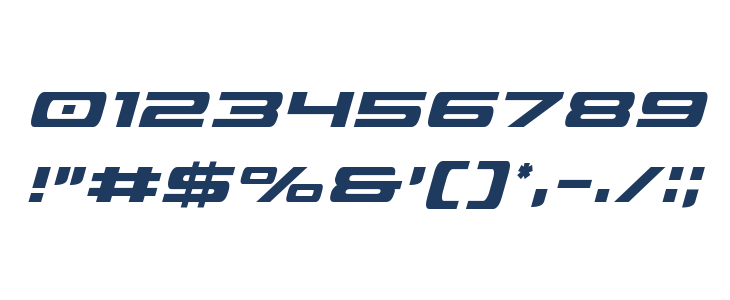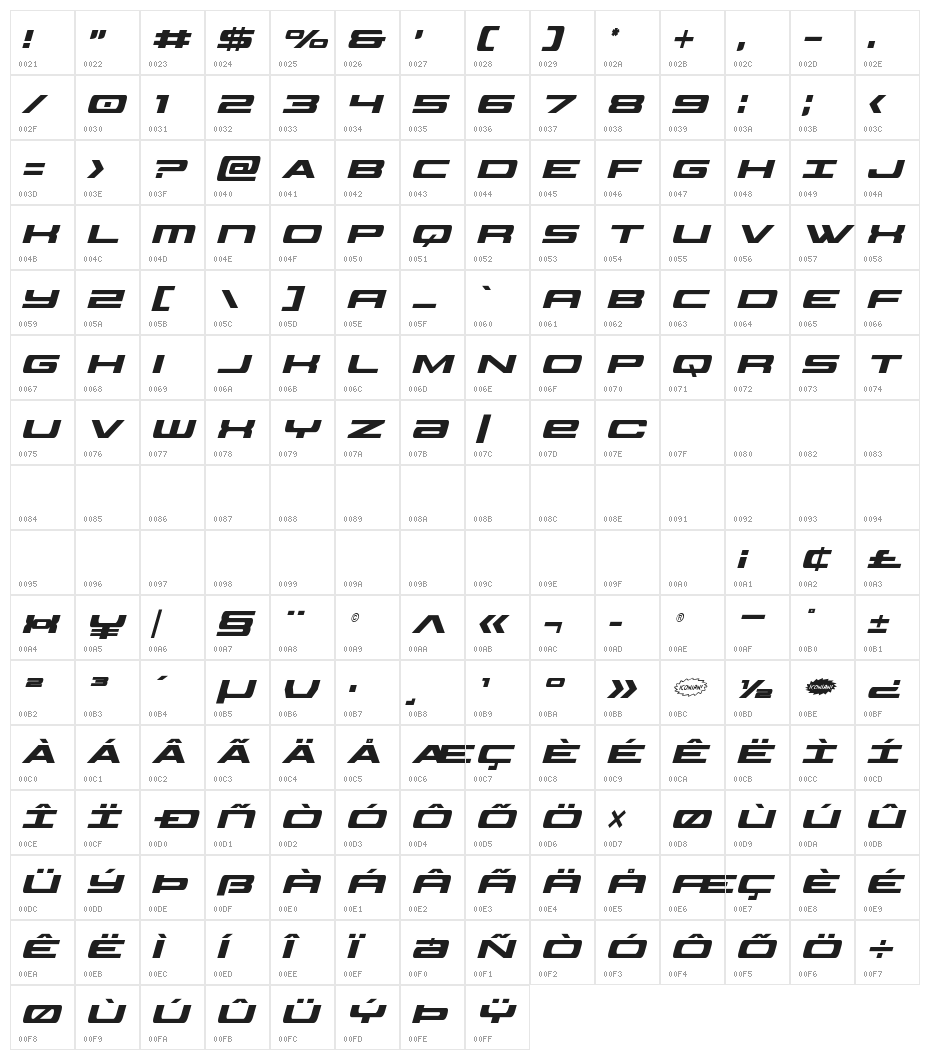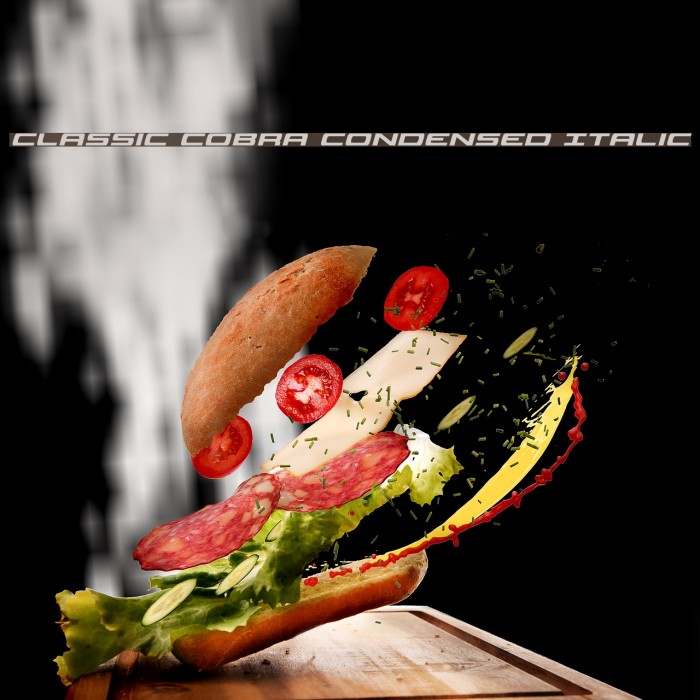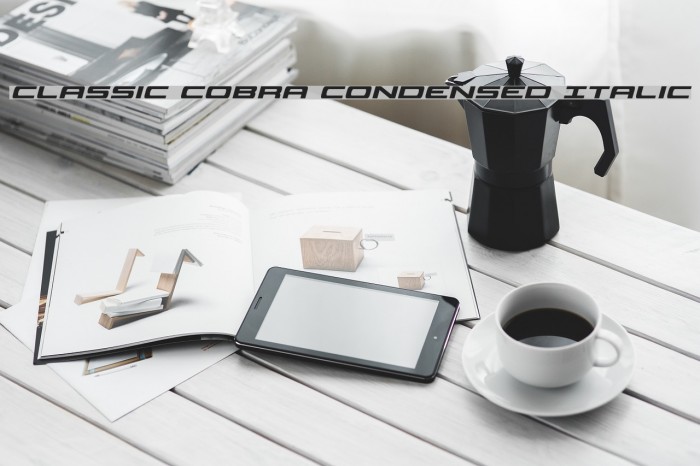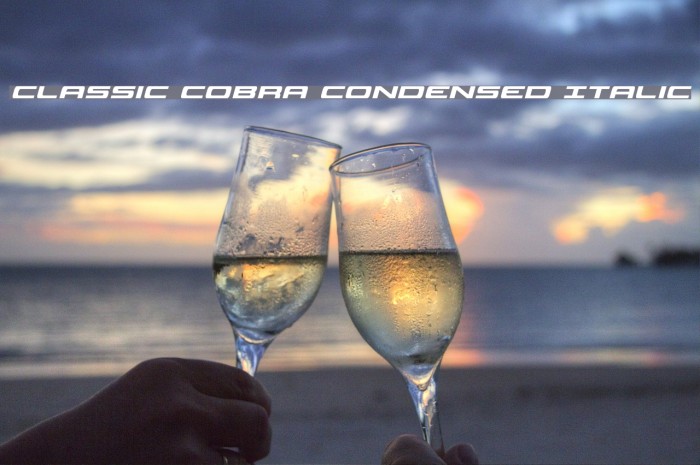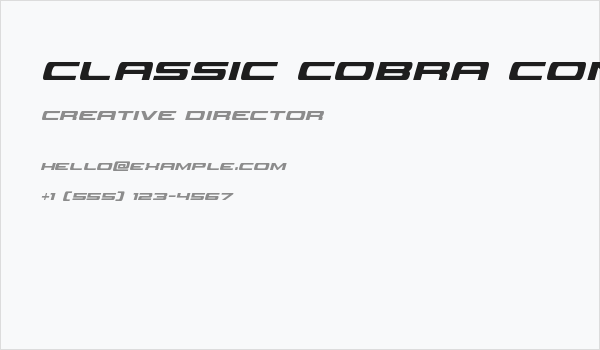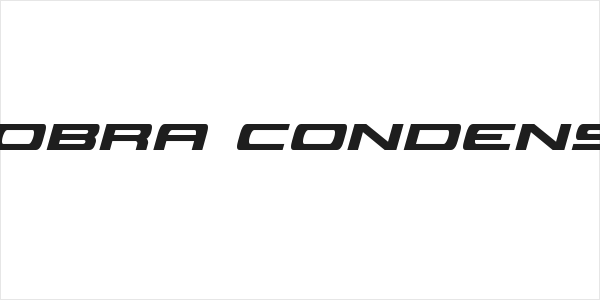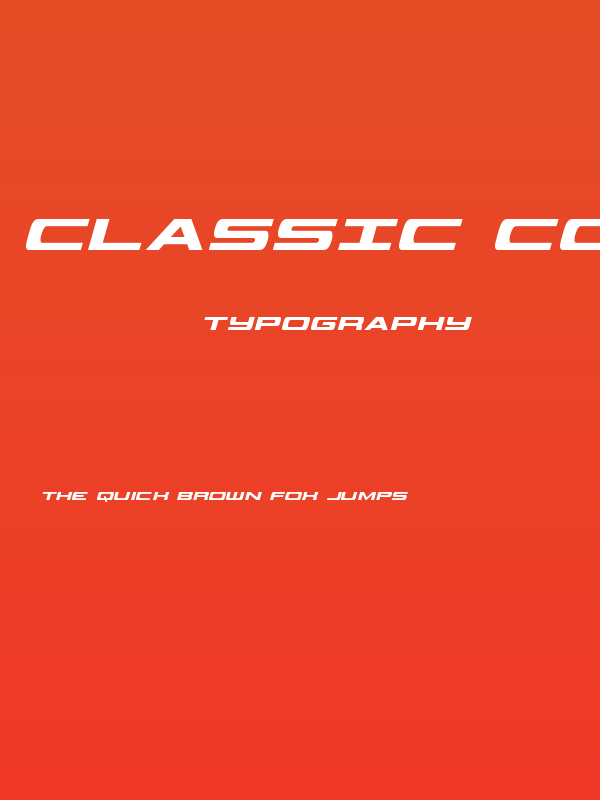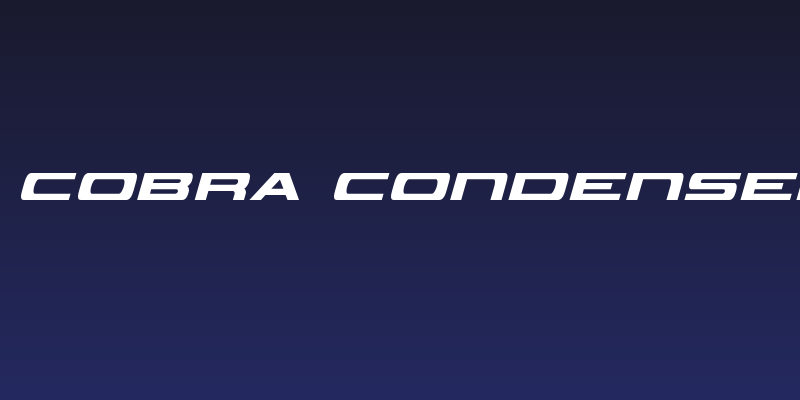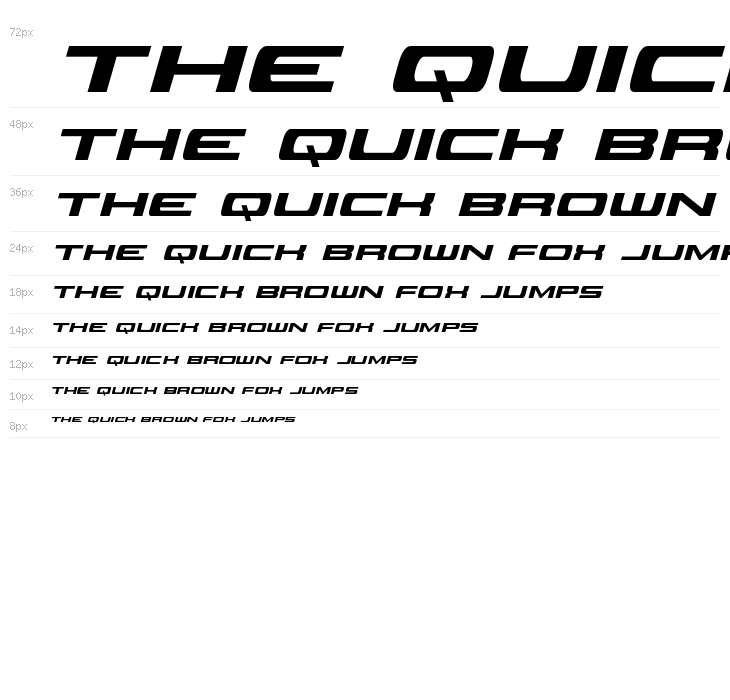
Classic Cobra Condensed Italic Font
Classic Cobra Condensed Italic Description
This font features a sleek, modern design with a condensed and italicized style. The characters are slightly slanted, giving a dynamic and forward-moving appearance. The strokes are uniform in thickness, providing a clean and consistent look across all characters. The font maintains a geometric structure, with sharp angles and straight lines, contributing to its contemporary feel. It is highly legible, even at smaller sizes, making it versatile for various applications. The numbers and special characters are designed to match the overall aesthetic, ensuring a cohesive look throughout.